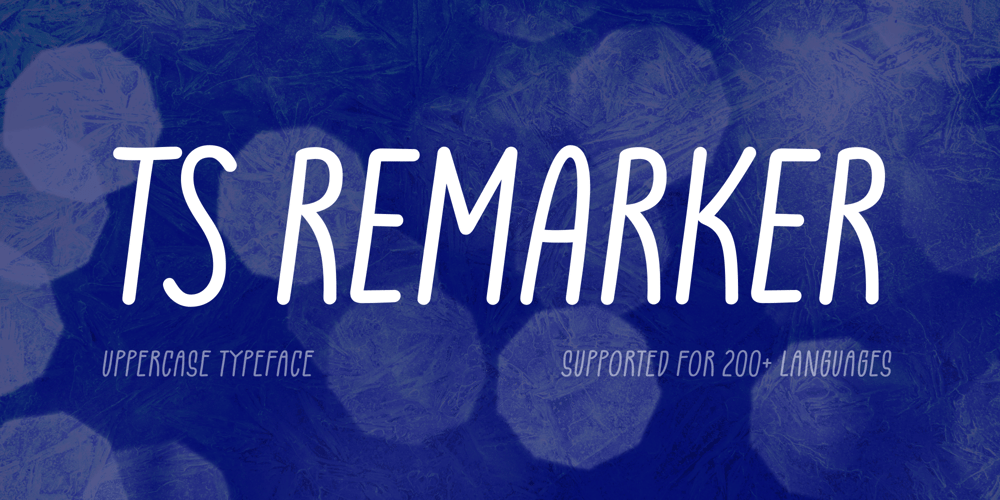
TS Remarker Font Family was designed by Vitaliy Tsygankov and published by Vitaliy Tsygankov. TS Remarker contains 4 styles and family package options. The font accelerates the process of adding inscriptions and eliminates the need to redraw the same letters every time.The lettering is based on a simple felt-tip pen. The lines have minimal contrast and are not meant to be perfect.A simple and uncomplicated design goes great with a happy holiday mood. The font is suitable for small postcard texts, social media images, invitations, branding, mockups, packaging, ads, and captions.The TS Remarker typeface consists of 4 fonts: 2 upright (normal for regular lettering and alternative for a more colorful impression) and 2 italic.